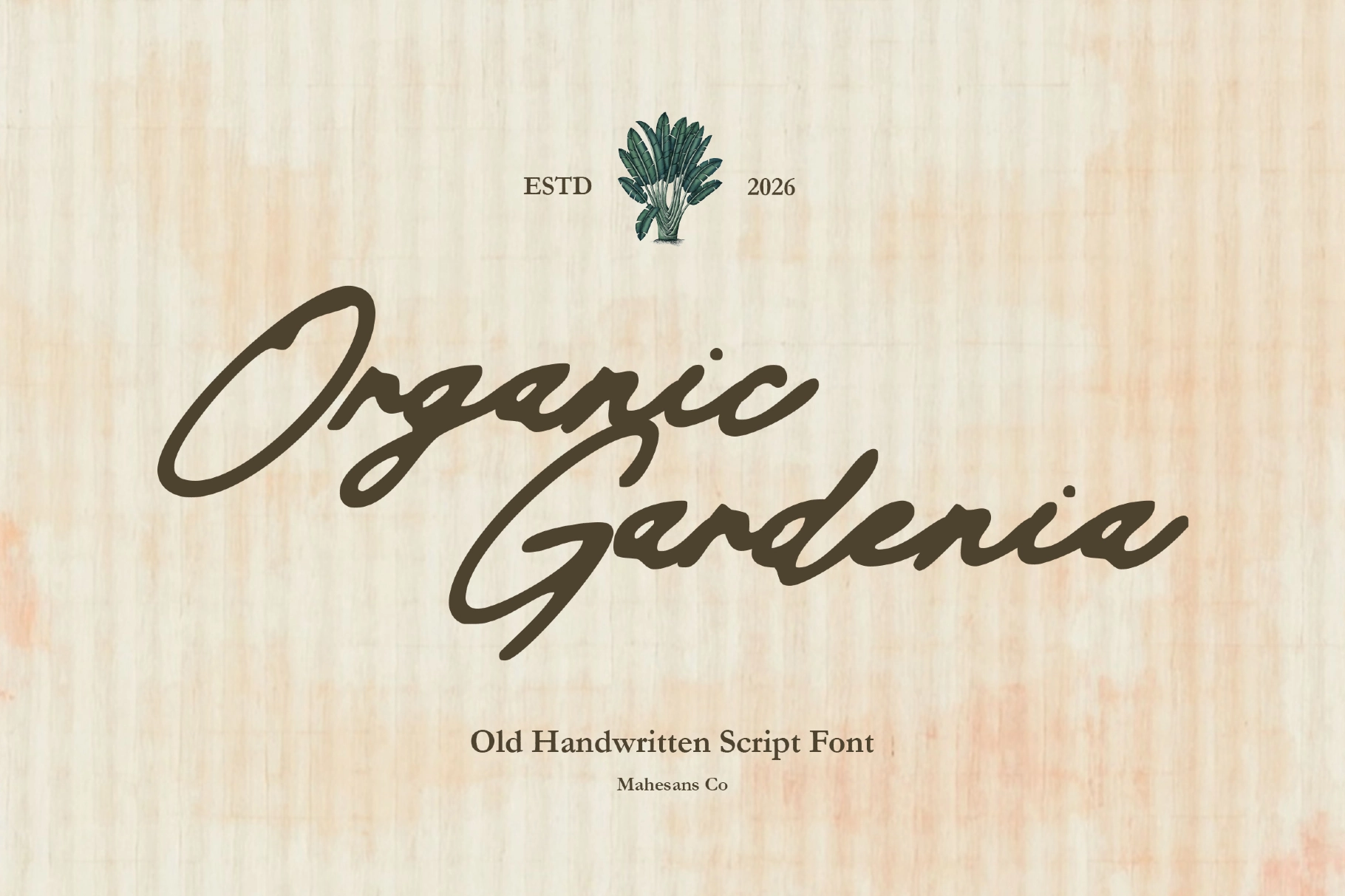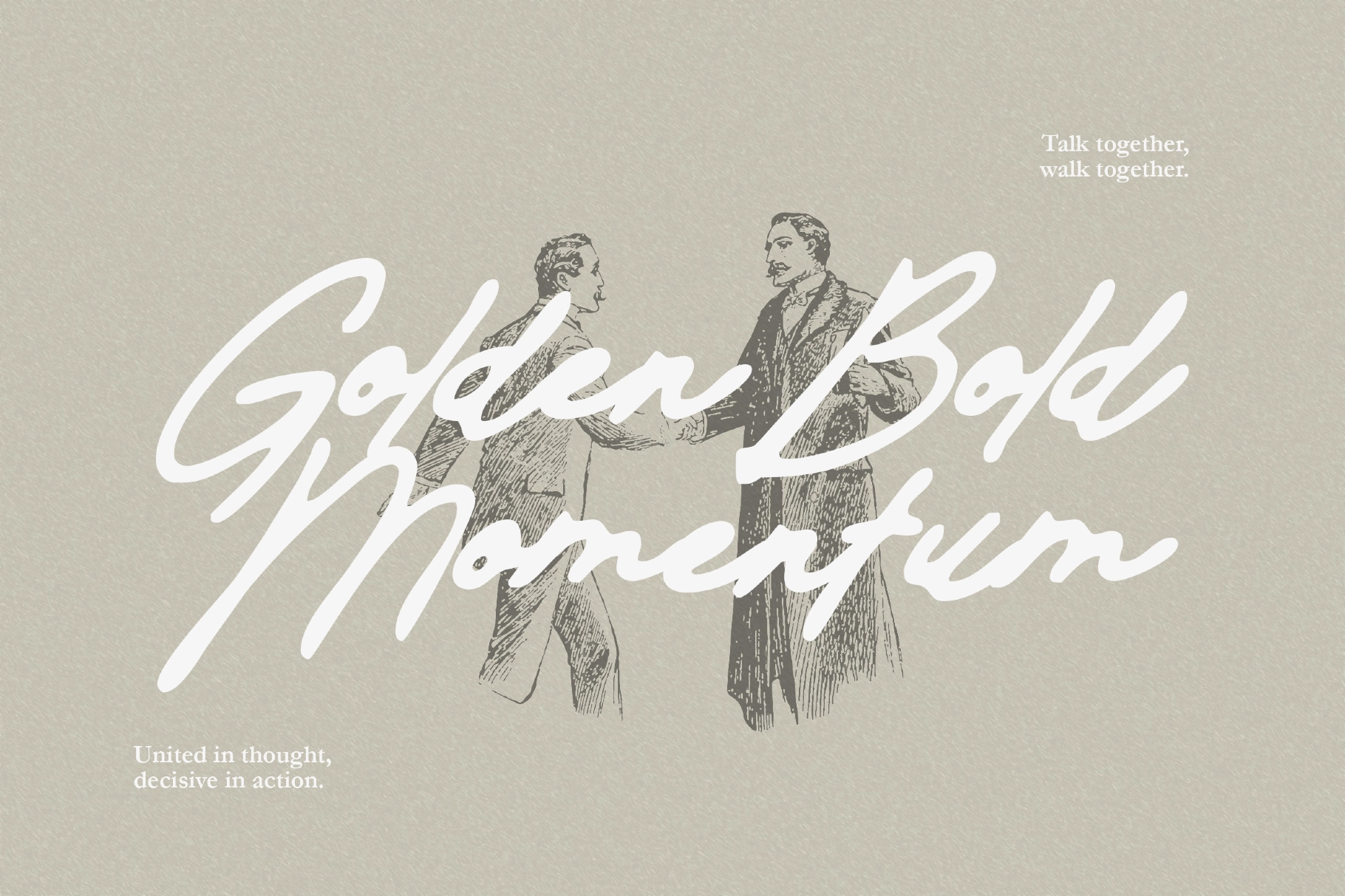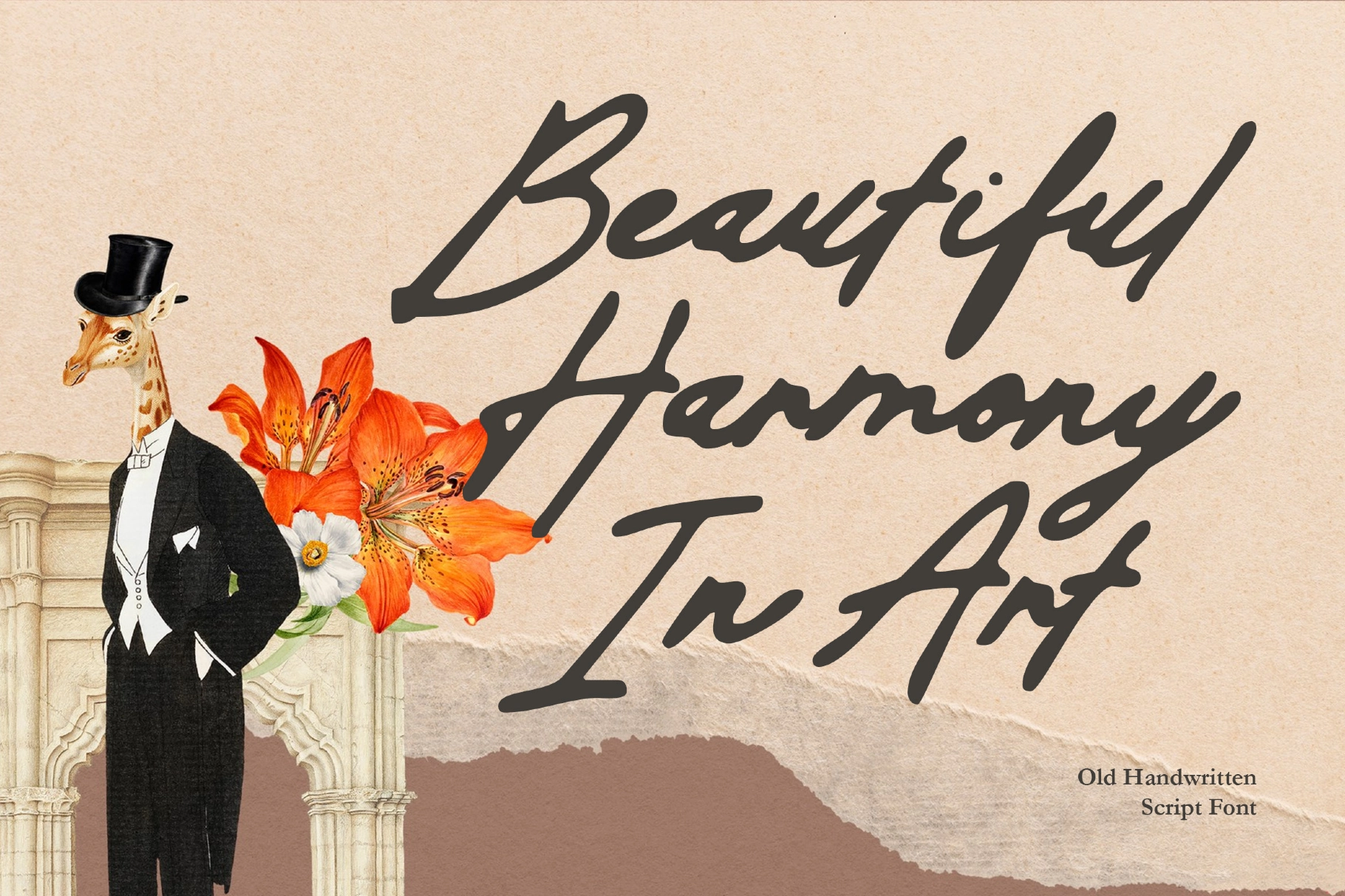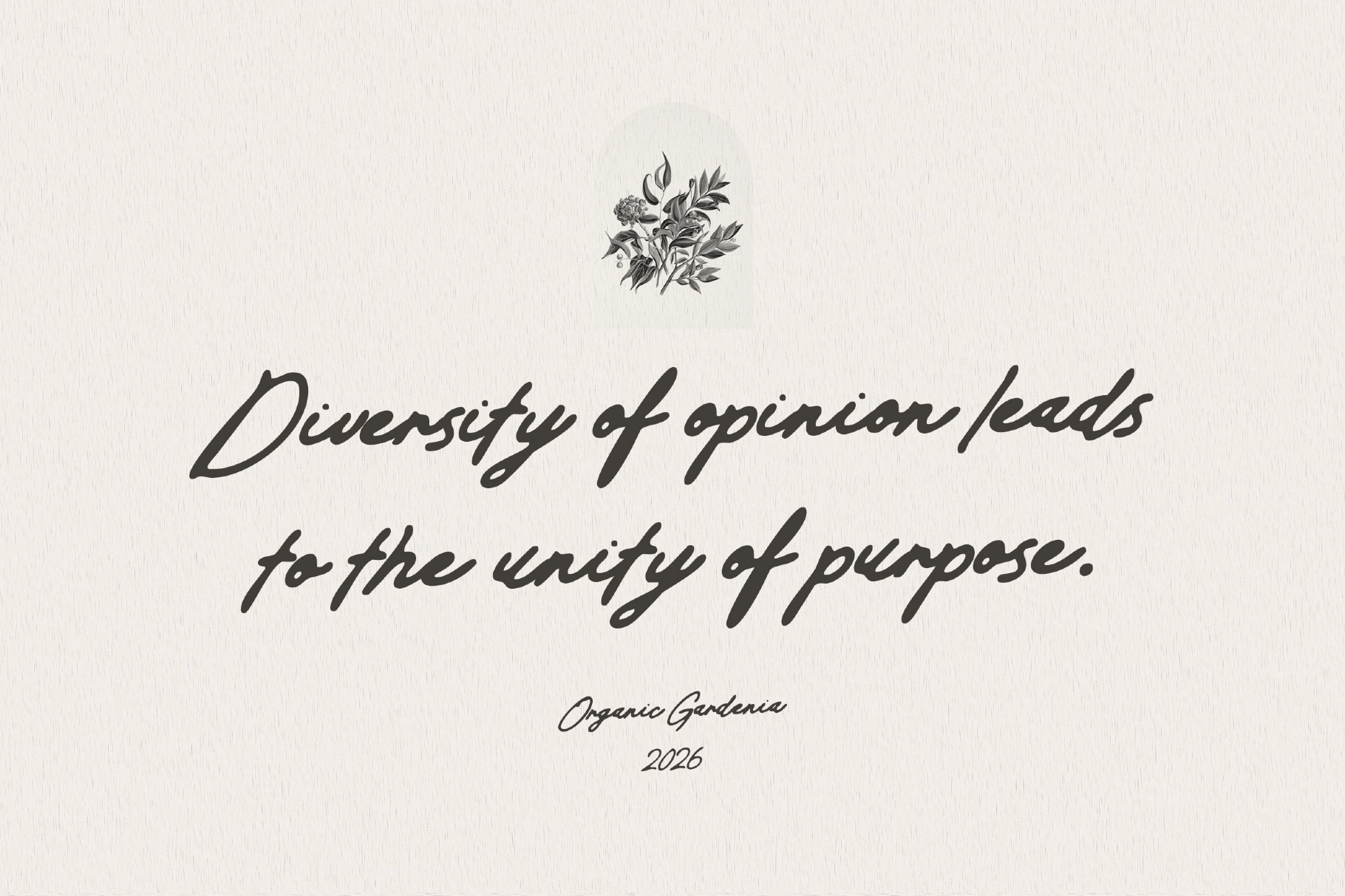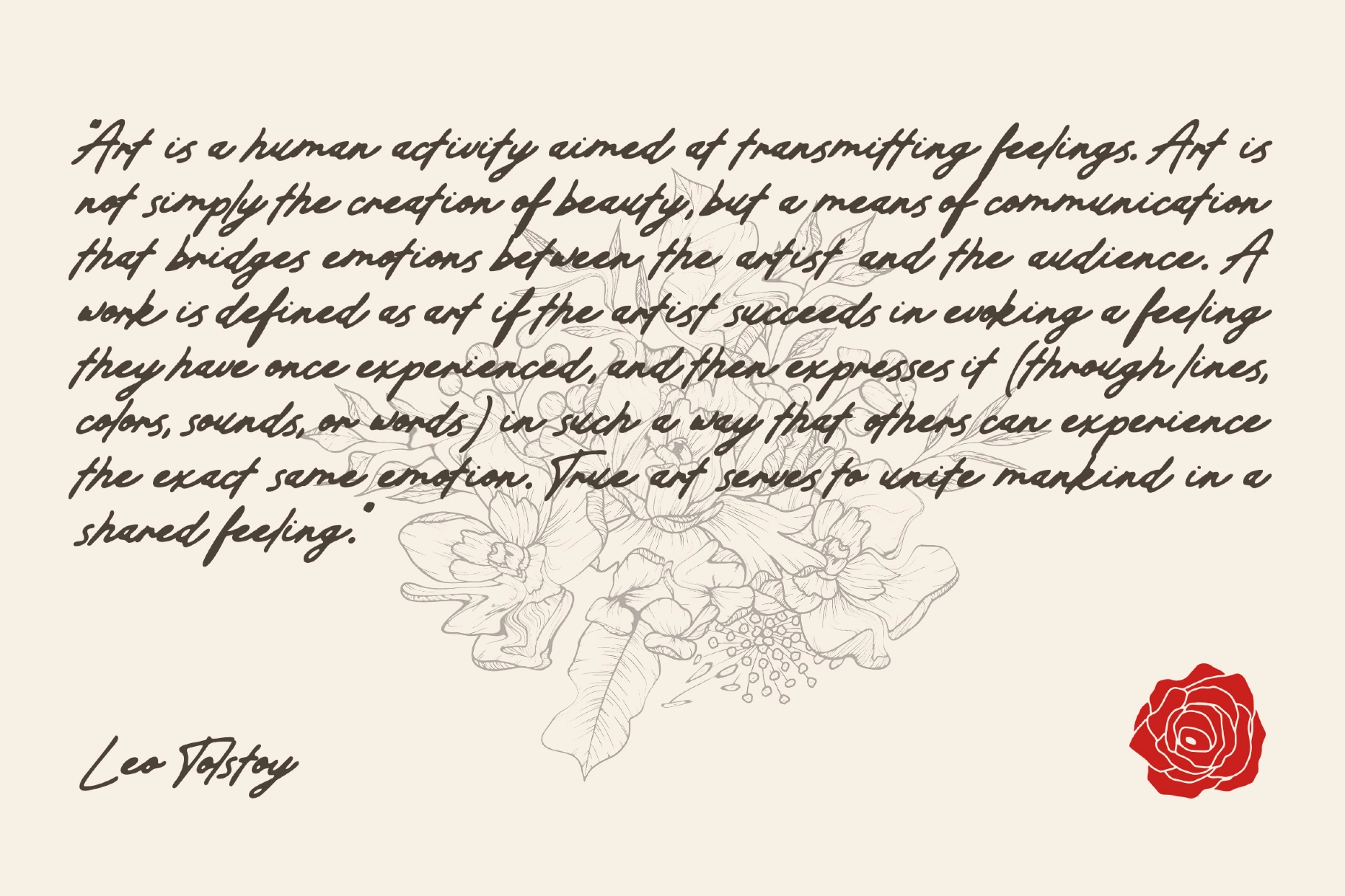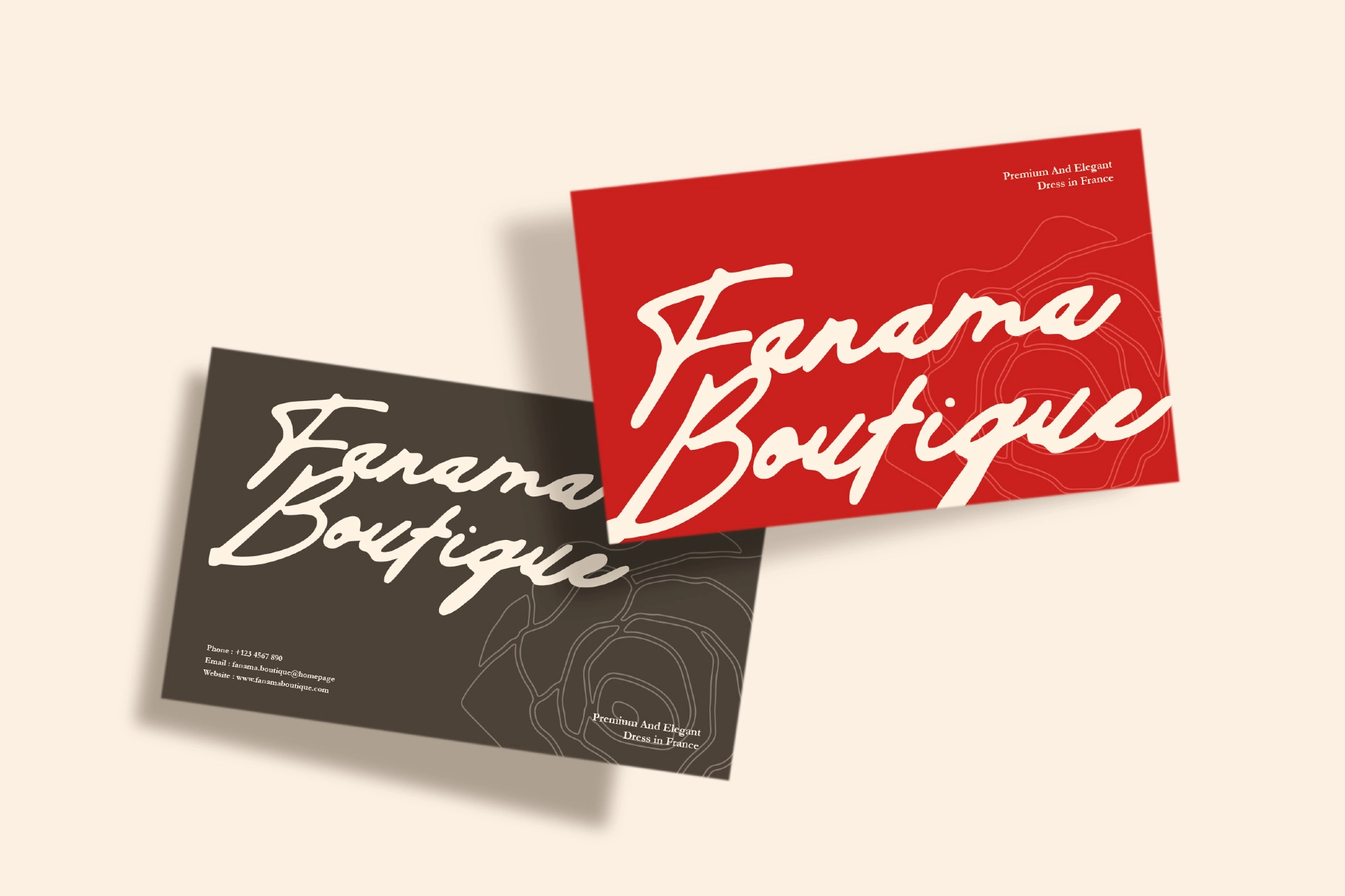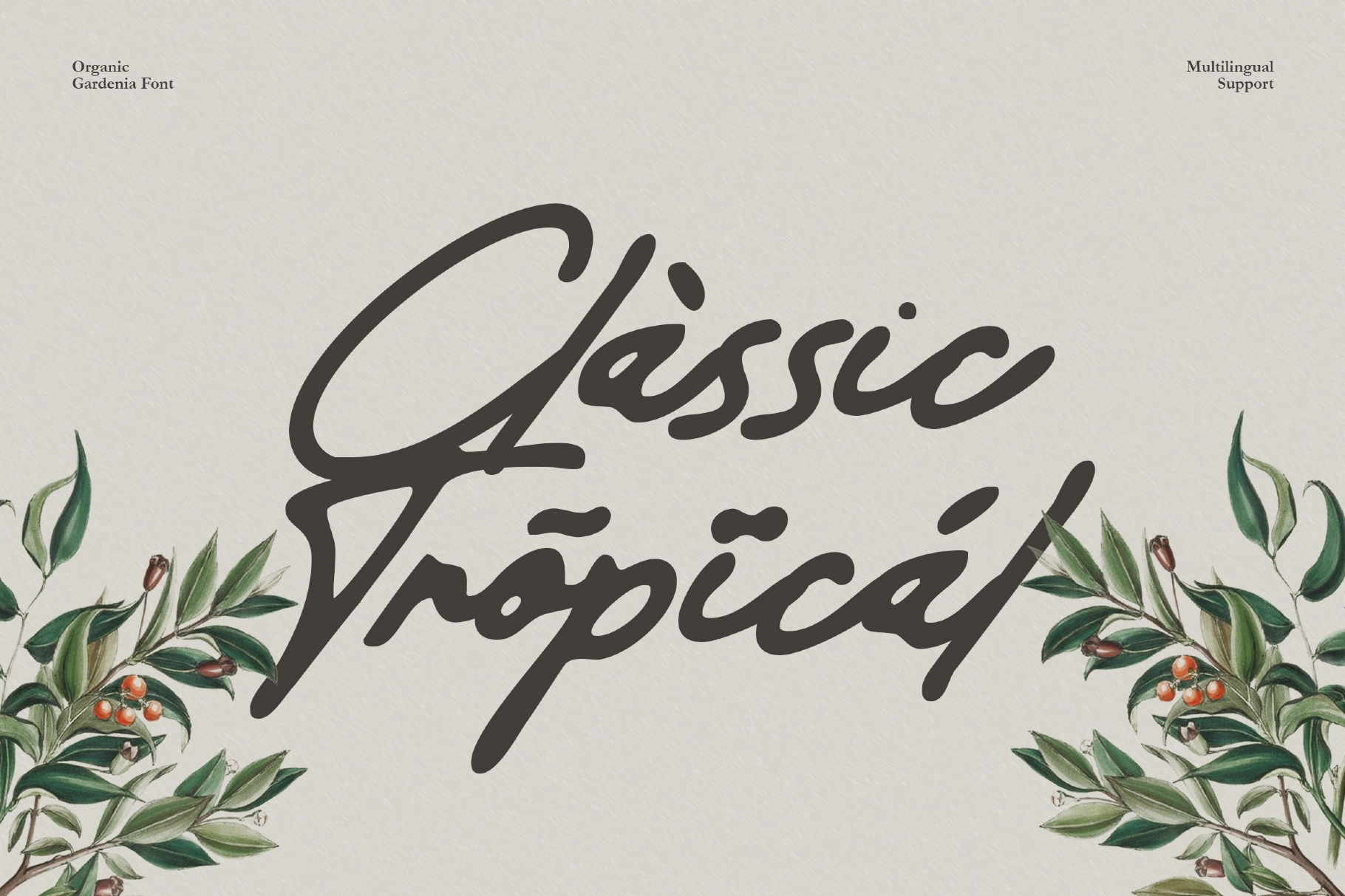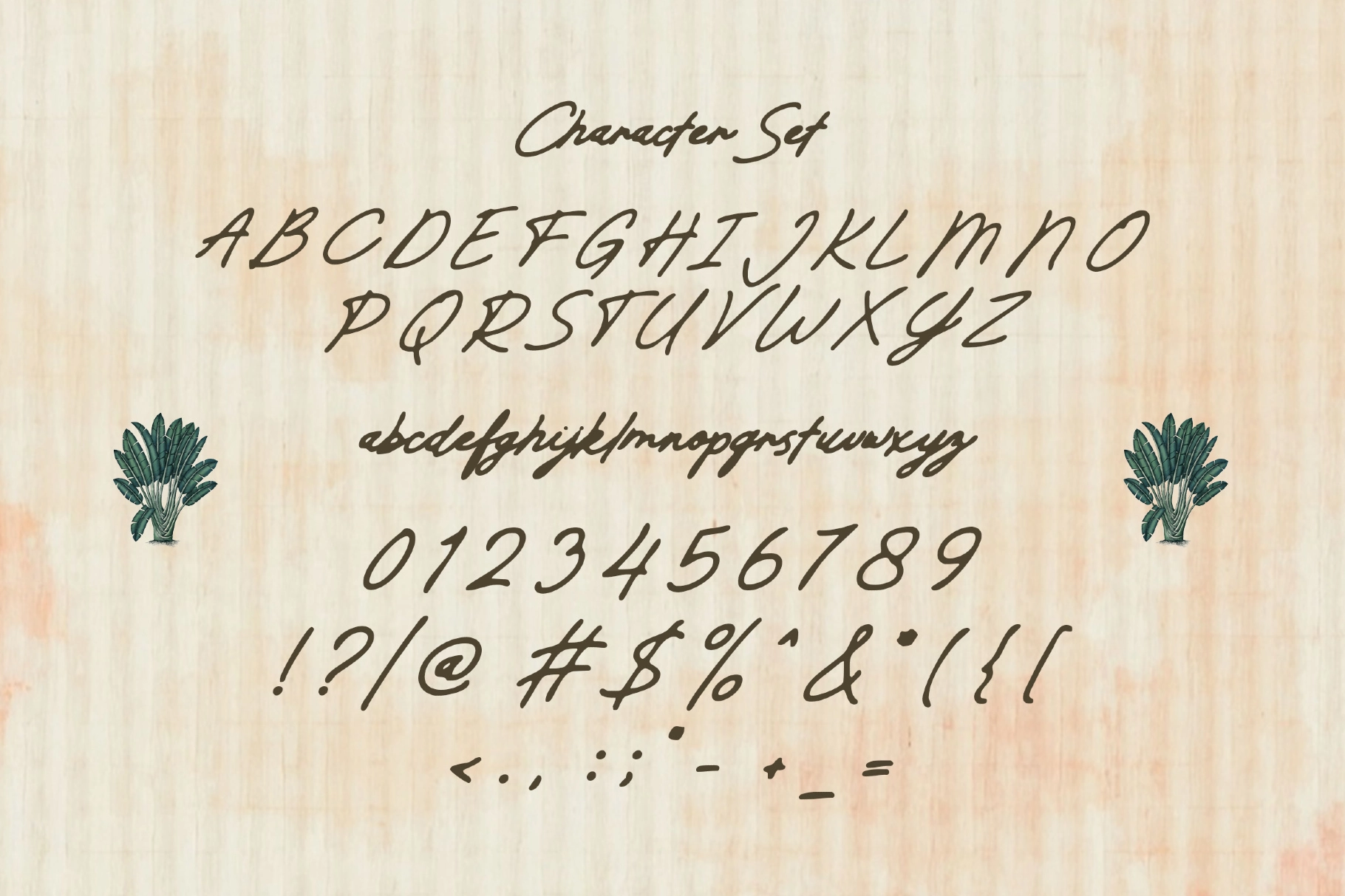
Organic Gardenia - Old Handwritten Script Font
Loose, personal, and softly imperfect, this handwritten script typeface has the pace of real ink moving across paper. Its long strokes, casual joins, and uneven pressure give words a warm editorial character with a quiet vintage note.
Gardenia is made for botanical branding, café identities, wedding stationery, greeting cards, journal covers, product packaging, quote prints, florist labels, social media graphics, book covers, logo marks, signature-style accents, and more. The letterforms are expressive enough for large display use, yet readable enough for short notes and supporting text.
• Numerals & Punctuation
• Multilanguage support